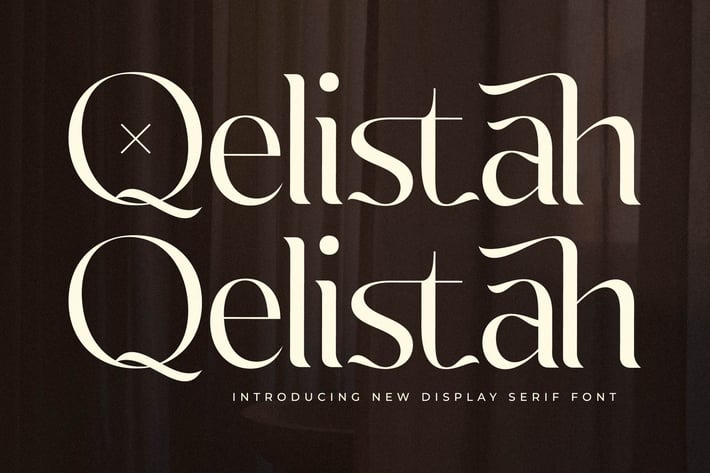
Qelistah New Display Serif Font
Qelistah Display is a modern luxury serif with elegant curves, sharp transitions, and a refined editorial presence. Its sculpted letterforms blend contemporary fashion aesthetics with timeless sophistication—perfect for high-end branding, magazine layouts, and statement titles that demand visual impact.
Modern display serif with graceful, distinctive curves
High-contrast stroke details for a premium editorial look
Stylish personality ideal for luxury branding
Suitable for both digital media and upscale print design
Luxury brand identities
Magazine covers & editorial spreads
Beauty, fashion, and skincare branding
High-impact posters & promotional visuals
Packaging, labels, and premium product design
Elegant social media content & campaign headers
Modern luxury serif crafted for bold, sophisticated storytelling.